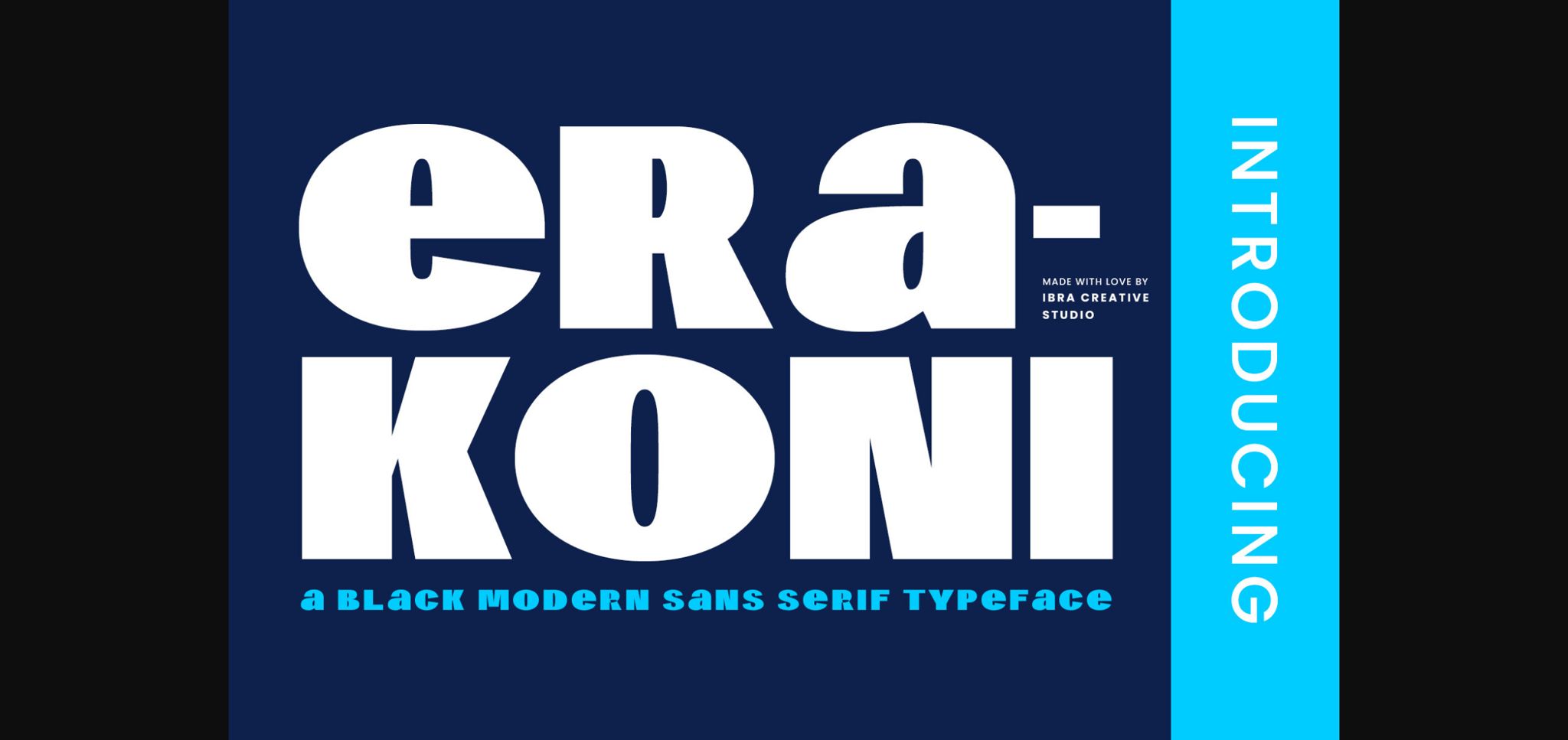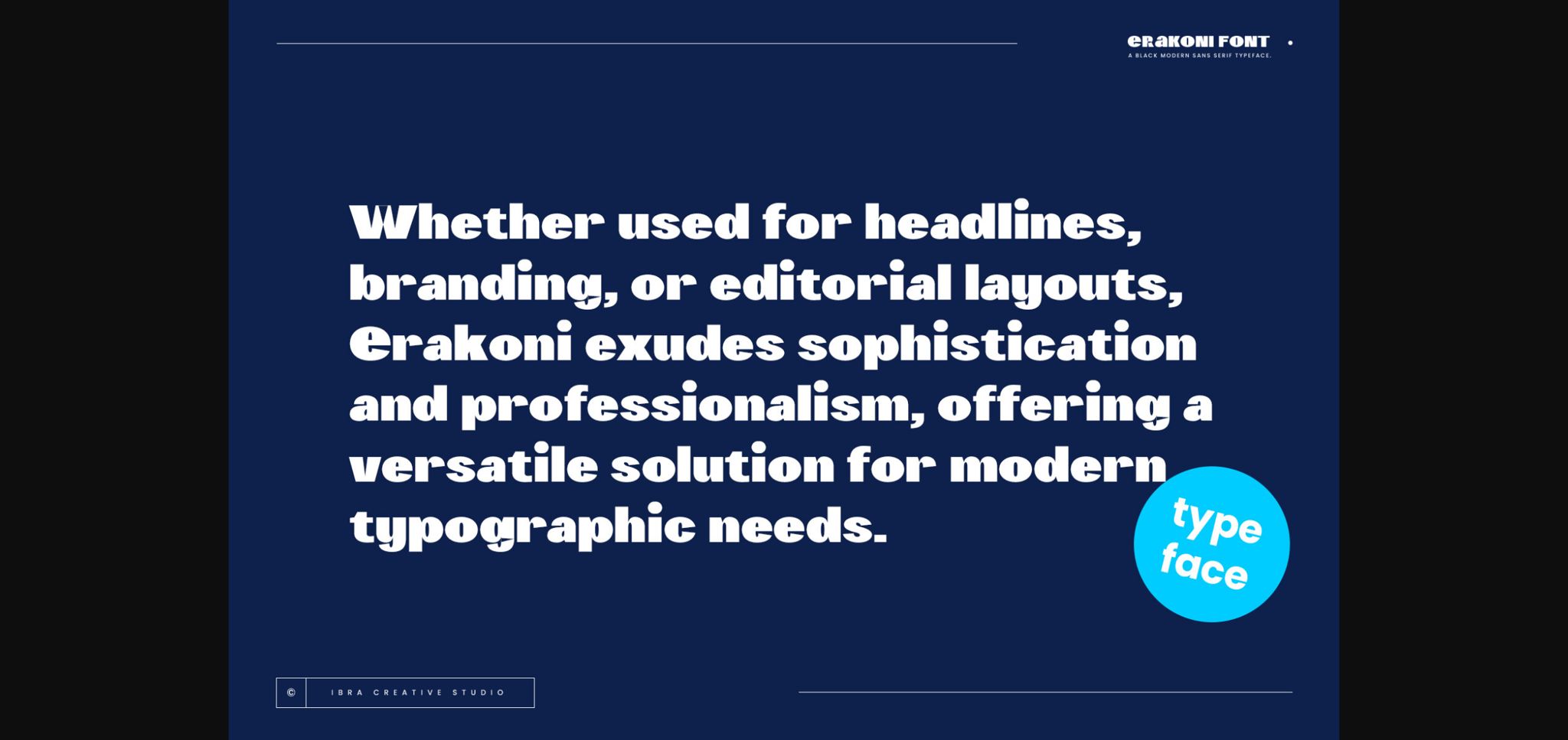
About Erakoni Font
Erakoni, a sleek black modern sans serif typeface, epitomizes contemporary elegance with its clean lines and bold presence. Each letter in Erakoni commands attention with its precise geometric forms, making a striking statement in any design. Whether used for headlines, branding, or editorial layouts, Erakoni exudes sophistication and professionalism, offering a versatile solution for modern typographic needs.